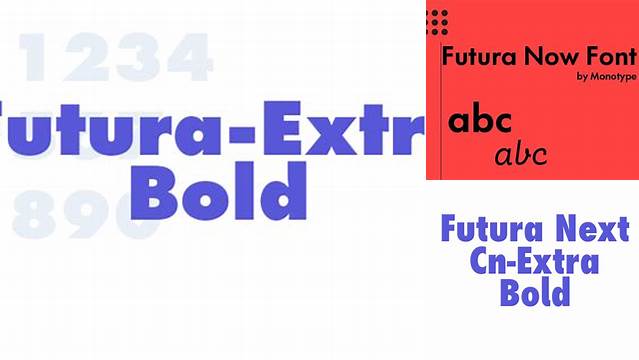
Futura ExtraBold Font: Free Download & Design Guide
Futura Now: Free Download of ExtraBold Font and Its Impact on Design
Futura ExtraBold font free download is a sought-after request in the design community, and for good reason. This particular weight of the Futura typeface offers a commanding presence, making it ideal for headlines, titles, and any design element that needs to grab immediate attention. Its clean lines and geometric forms exude a modern and timeless aesthetic, which has cemented its place in graphic design history. From the moment you decide to explore the Futura ExtraBold font free download, you're stepping into a world where typography meets art and functionality. This guide will delve into the essence of Futura ExtraBold, its impact on design, where to find it, and how to effectively incorporate it into your projects. Whether you're a seasoned designer or a budding enthusiast, understanding the nuances of this iconic font is crucial. Let’s dive in and unlock the power of Futura ExtraBold font free download.
Unveiling the Majesty of Futura ExtraBold
Futura, designed by Paul Renner in 1927, is celebrated for its efficiency, clarity, and modern appeal. The ExtraBold weight takes these characteristics to the extreme, offering a bolder, more impactful version of the typeface. When you embark on a Futura ExtraBold font free download journey, you're not just acquiring a font; you're embracing a legacy of design excellence. The font's geometric shapes, derived from simple circles, squares, and triangles, give it a distinct, easily recognizable aesthetic. This clarity makes Futura ExtraBold exceptionally readable, even at larger sizes, and its ability to convey a sense of authority makes it ideal for branding, marketing materials, and editorial design. The visual weight of Futura ExtraBold ensures that it commands attention, making it the perfect choice when you want to highlight a specific message or draw the viewer's eye. Its clean and neutral appearance ensures that it complements various design styles, making it a versatile asset for any designer. The font's enduring popularity is a testament to its timeless design, which continues to resonate with designers across the globe.
Futura ExtraBold distinguishes itself by its imposing presence. The extra thickness of the strokes intensifies the typeface's impact, making it suitable for headlines, posters, and any application where a bold statement is required. When you opt for a Futura ExtraBold font free download, you're adding a powerful tool to your design arsenal. It's not just about the boldness; it's about the confidence and modernity that the font conveys. This typeface's versatility allows it to fit seamlessly into various design projects, from corporate branding to website design. The carefully crafted letterforms of Futura ExtraBold ensure both readability and visual appeal, guaranteeing that your message is not only heard but also remembered. Its geometric forms create a sense of order and clarity, while its bold nature makes it unforgettable.
Finding the Perfect Futura ExtraBold Font Free Download
Maximizing the Impact of Futura ExtraBold in Your Designs
Once you've successfully obtained your Futura ExtraBold font free download, the real fun begins—integrating it into your design projects. Use the font judiciously to maximize its impact. Its boldness is best suited for headlines, subheadings, and calls to action, ensuring they stand out and capture attention. Avoid using it for large blocks of text, as the heavy weight can make reading difficult. Instead, pair it with a lighter weight of Futura or a complementary font for body text to maintain readability. Experiment with different sizes and letter spacing to find the perfect balance that suits your design's overall aesthetic. When using Futura ExtraBold font free download, consider its geometric nature and how it can complement other elements in your design. The clean lines of the font work well with minimalist and modern designs, creating a sense of sophistication and clarity.
Color choices are important when using Futura ExtraBold. The font's bold presence can be enhanced or diminished depending on the color used. Use high-contrast colors to make the text pop, but ensure there is enough contrast between the text and the background to maintain readability. Using Futura ExtraBold in branding, use it consistently across your marketing materials, from your logo to your website. This consistency helps create brand recognition and reinforces your brand's identity. Moreover, consider the target audience of your design. The font’s modern appeal resonates well with younger audiences and brands looking to portray a sense of innovation and forward-thinking. Finally, always test your design across various devices and platforms to ensure the font looks its best and your message is clear.
Futura ExtraBold: A Timeless Design Choice
In conclusion, the Futura ExtraBold font free download offers designers a powerful tool with timeless appeal. Its commanding presence, clean lines, and geometric forms make it ideal for creating impactful headlines and design elements that grab attention. While finding a legitimate and safe source for the font is crucial, the effort is well worth it. When used correctly, Futura ExtraBold can elevate your designs, adding a touch of modernity and sophistication. Remember to pair it with a lighter weight of Futura or a complementary font for body text. To unlock the full potential of Futura ExtraBold, incorporate it in your brand to give a consistent, recognizable message. With the right approach, Futura ExtraBold can be a game-changer in your design toolkit, helping you create visually stunning and effective designs that leave a lasting impression. Embrace the boldness and embrace the legacy.